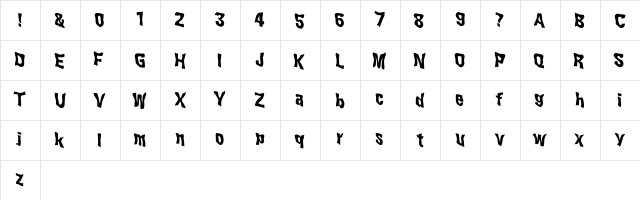
WILD2 Ghixm NC Bold
Design Context for WILD2 Ghixm NC Typeface
WILD2 Ghixm NC is a composed and adaptable typeface that performs quietly and consistently across a wide range of design contexts. Its bold stroke weight gives it real presence on the page.
Pro Tip: Pair WILD2 Ghixm NC with a font of contrasting weight or personality to build a more expressive typographic hierarchy.